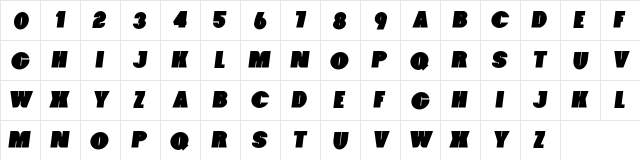
Foxxy Black Italic
| Foundry | Jeremy Woods |
| Designer | Jeremy Woods |
Design Context for Foxxy Typeface
Foxxy offers clean, dependable letterforms without strong stylistic allegiance, making it a practical choice for designers who need flexibility. The dynamic lean of this cut emphasises speed and emphasis in any layout.